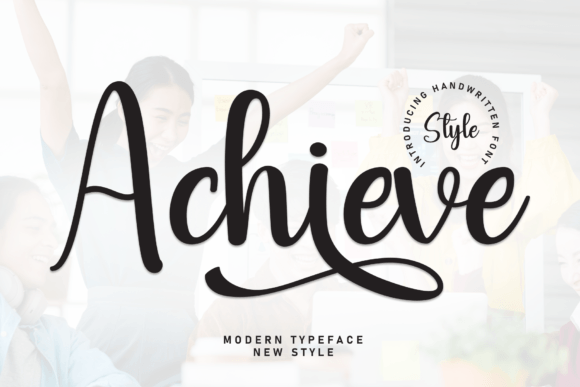
In a world saturated with mediocre typography, allow us to introduce 'Achieve Font,' a script font that is poised to revolutionize your digital designs. Every stroke and curve of this magnificent creation is meticulously crafted to evoke a sense of playfulness, making it the perfect companion for your whimsical ventures.
Conceived by the renowned font maestro, William Jhody, 'Achieve Font' belongs to the elite family of script fonts, renowned for their charm and effortless flow. With this font at your disposal, your designs will exude a touch of elegance and sophistication that is sure to leave an indelible mark on your audience's minds.
Unleash your creativity and let 'Achieve Font' take center stage in your wedding invitations, greeting cards, posters, and social media graphics. Its playful and cheerful nature will effortlessly elevate your designs, transforming them into captivating works of art.
But wait, there's more! 'Achieve Font' is also a master of versatility, seamlessly adapting to a myriad of digital realms. Whether you're crafting logos, branding materials, or website designs, 'Achieve Font' will effortlessly elevate your creations, imbuing them with a unique charm that is sure to make a lasting impression.
With its impeccable craftsmanship and boundless potential, 'Achieve Font' is not just a mere font; it's an indispensable tool that will empower you to achieve greatness in the world of design. So, don't settle for mediocrity; embrace the magic of 'Achieve Font' and embark on a journey of creativity that will leave you breathless.